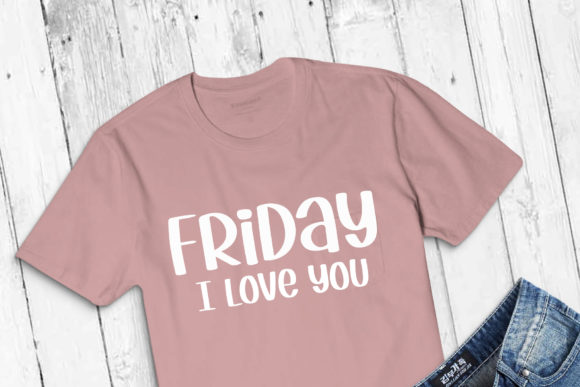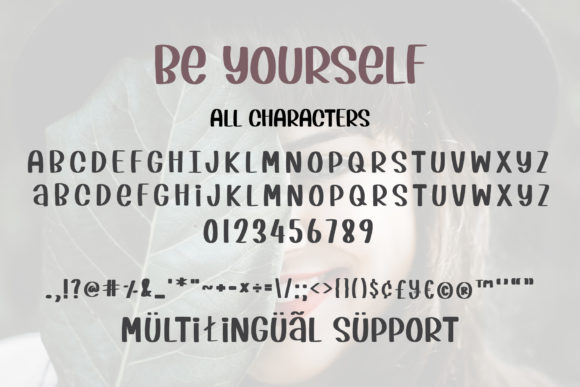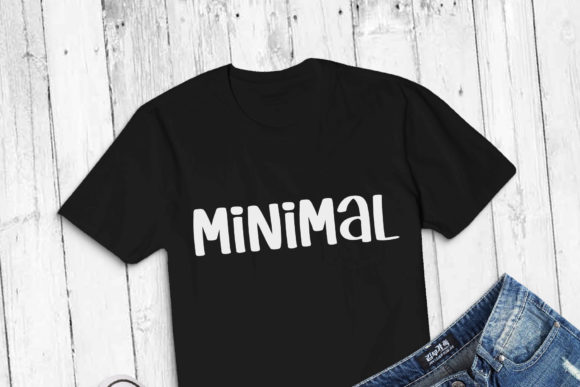
About Be Yourself Font
Be Yourself is a cute and friendly handwritten font. Playful and a little bit quirky, this font is the perfect fit for all of your logos, branding, posters, and crafty DIY projects.